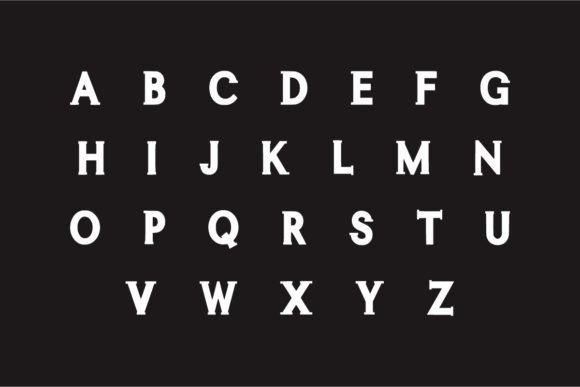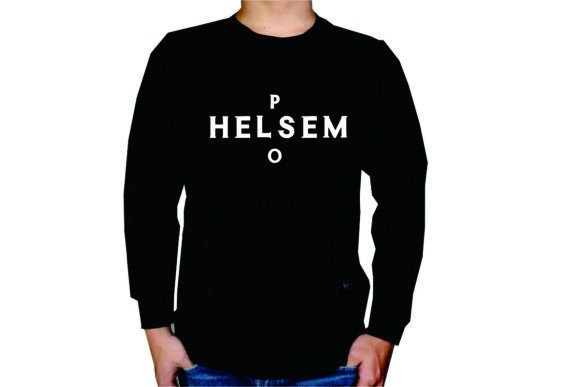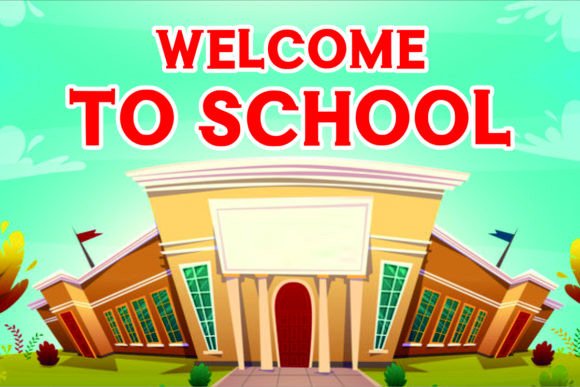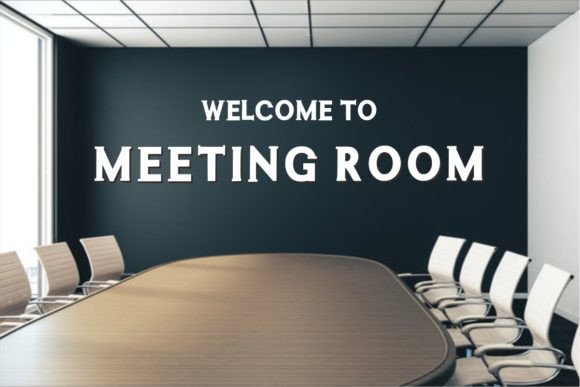
Discover the Dashing Personality of Barolly Font
As a designer, there’s nothing quite like the thrill of discovering a new font that speaks to you – one that exudes personality, sophistication, and a dash of whimsy. It’s a feeling that’s hard to put into words, but it’s the kind of moment that makes all the late nights and early mornings worth it. For me, that moment came when I stumbled upon the Barolly Font, a display font that’s equal parts sharp and charming.
Barolly Font is more than just a font – it’s a tool that lets you breathe life into your designs. Whether you’re working on a book, magazine, clothing label, or flyer, this font is perfect for adding a touch of personality to your project. Its casual, easy-to-read character makes it a valuable asset for designers who want to create something truly unique.
Barolly Font Key Features
- Font Family: Barolly Font is a serif typeface, designed to evoke a sense of elegance and sophistication.
- Unique Characteristics: Features a unique blend of traditional and modern design elements, including subtle flair on the terminals and a refined x-height.
Barolly Font Review
Overall, I’m impressed with the elegant design of the Barolly Font. It’s a beautifully crafted typeface that can add a touch of sophistication to any project. Here are some aspects where I think it shines:
- ✨ Elegant and refined design, perfect for luxury brands or high-end projects
- ✨ Great for headlines and titles, the font’s bold and condensed style makes it stand out
- ✨ Versatile, it can be used for a variety of projects, from fashion to corporate branding
Overall, I think the Barolly Font is a great choice for designers looking to add a touch of elegance and sophistication to their projects. While it may have some limitations, its unique design and versatility make it a valuable addition to any font collection.
The Barolly Font is perfect for creating elegant and sophisticated designs, such as:
- Luxury product packaging and branding
- High-end business cards and letterheads
Alternatives to Barolly Font
Playfair Display is an elegant, high-end serif font that is perfect for luxury branding and high-end design projects. It features intricate details and ornate flourishes, making it ideal for use in titles, headings, and other display typography. When to use: Luxury branding, high-end design, titles, and headings.
Playfair Display compares to Barolly Font in its level of sophistication and elegance. However, while Barolly Font has a more modern and sleek feel, Playfair Display has a more traditional and classic look.
Didot is a classic serif font that is known for its refined and elegant appearance. It is perfect for use in high-end design projects, luxury branding, and titles. When to use: Luxury branding, high-end design, titles, and headings.
Didot compares to Barolly Font in its level of sophistication and elegance. However, while Barolly Font has a more modern and sleek feel, Didot has a more traditional and classic look.